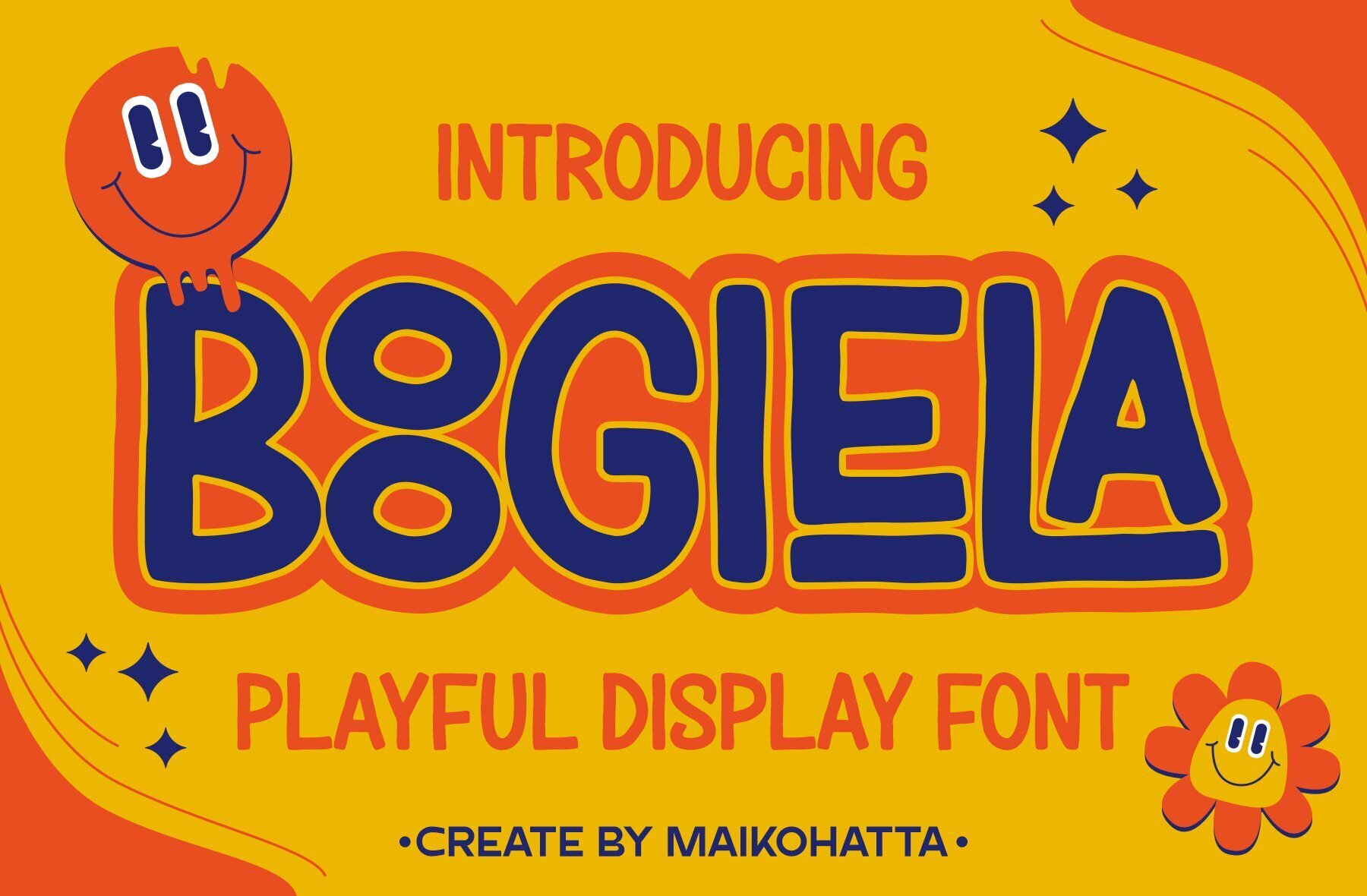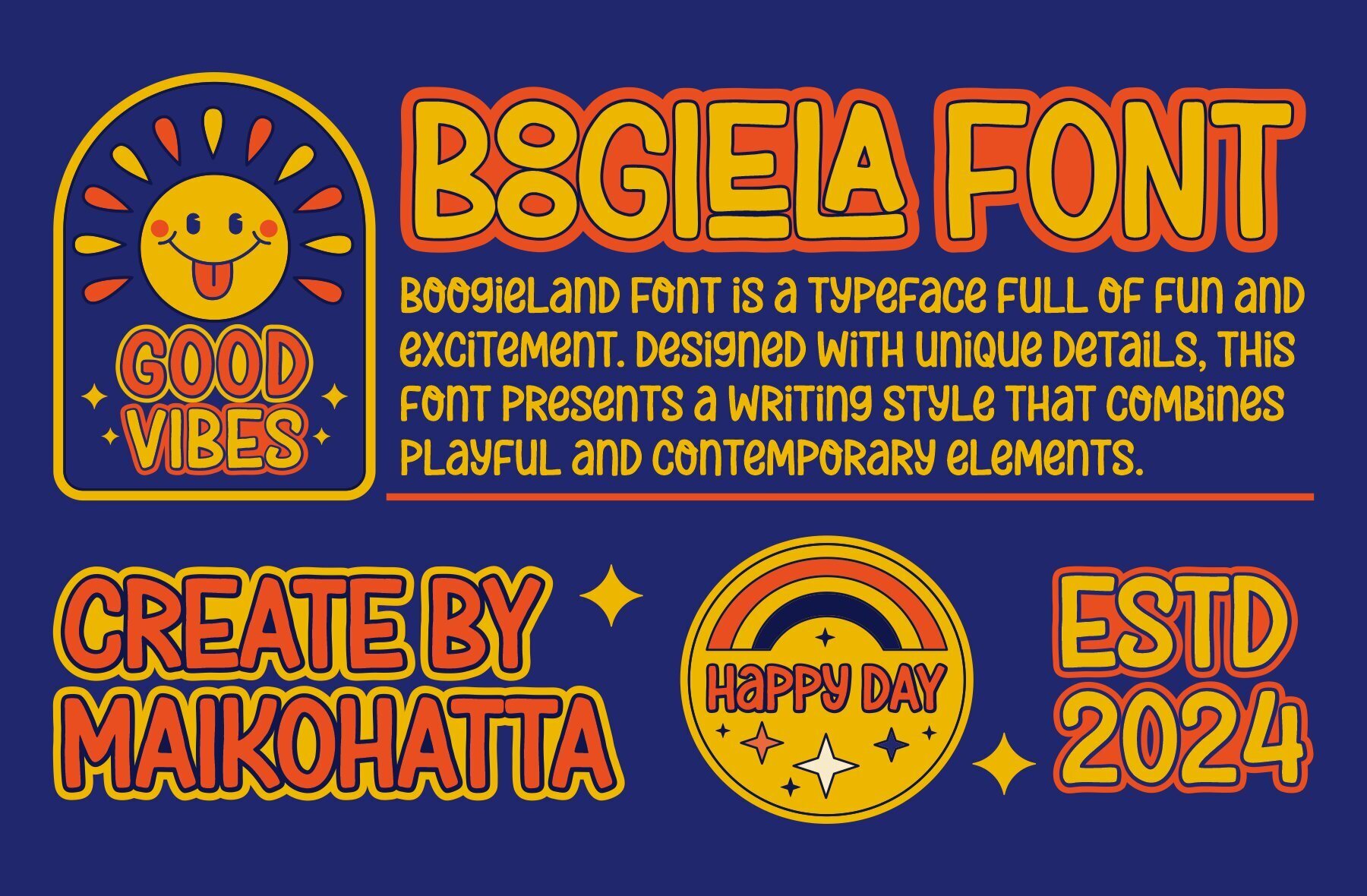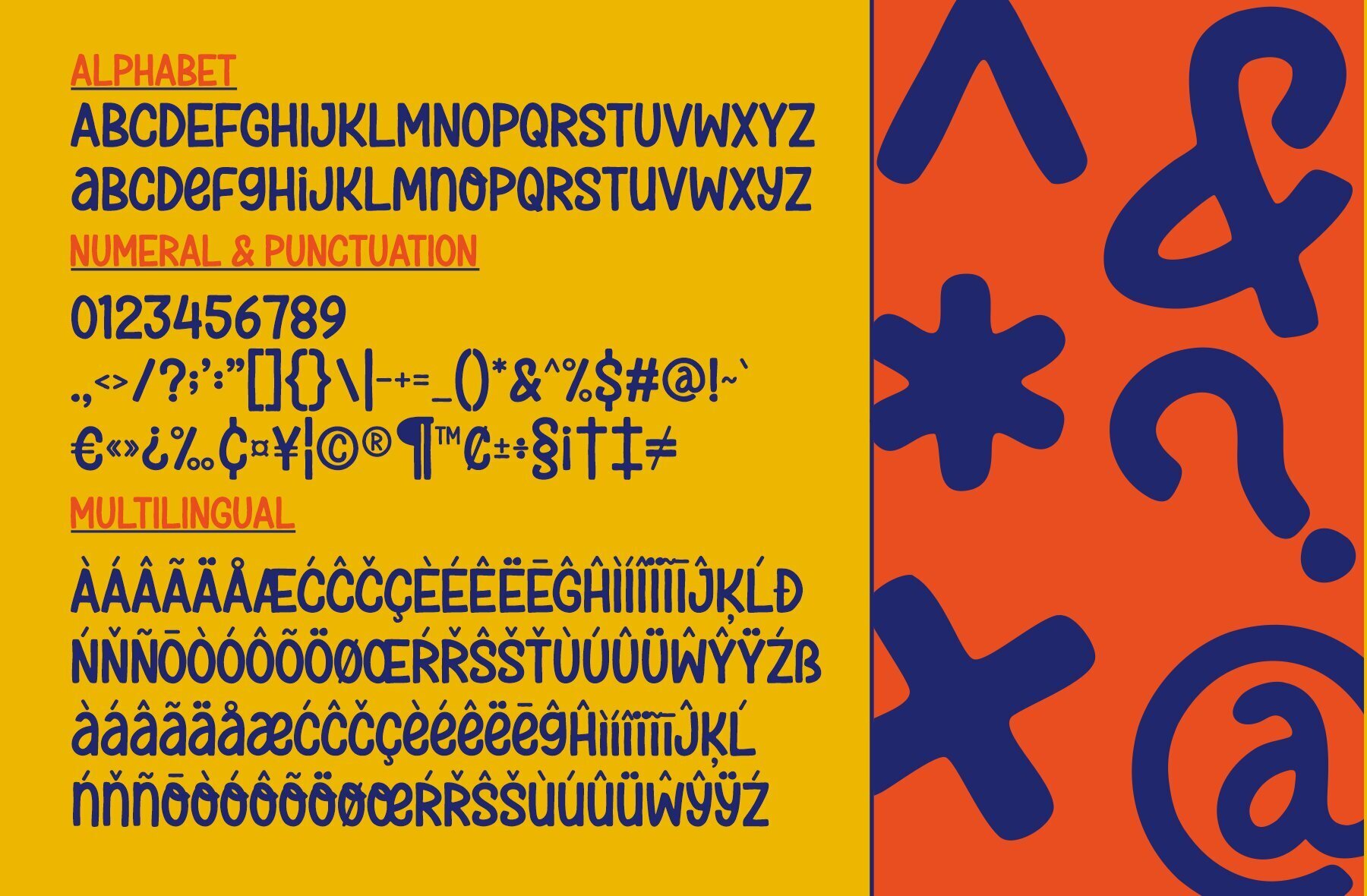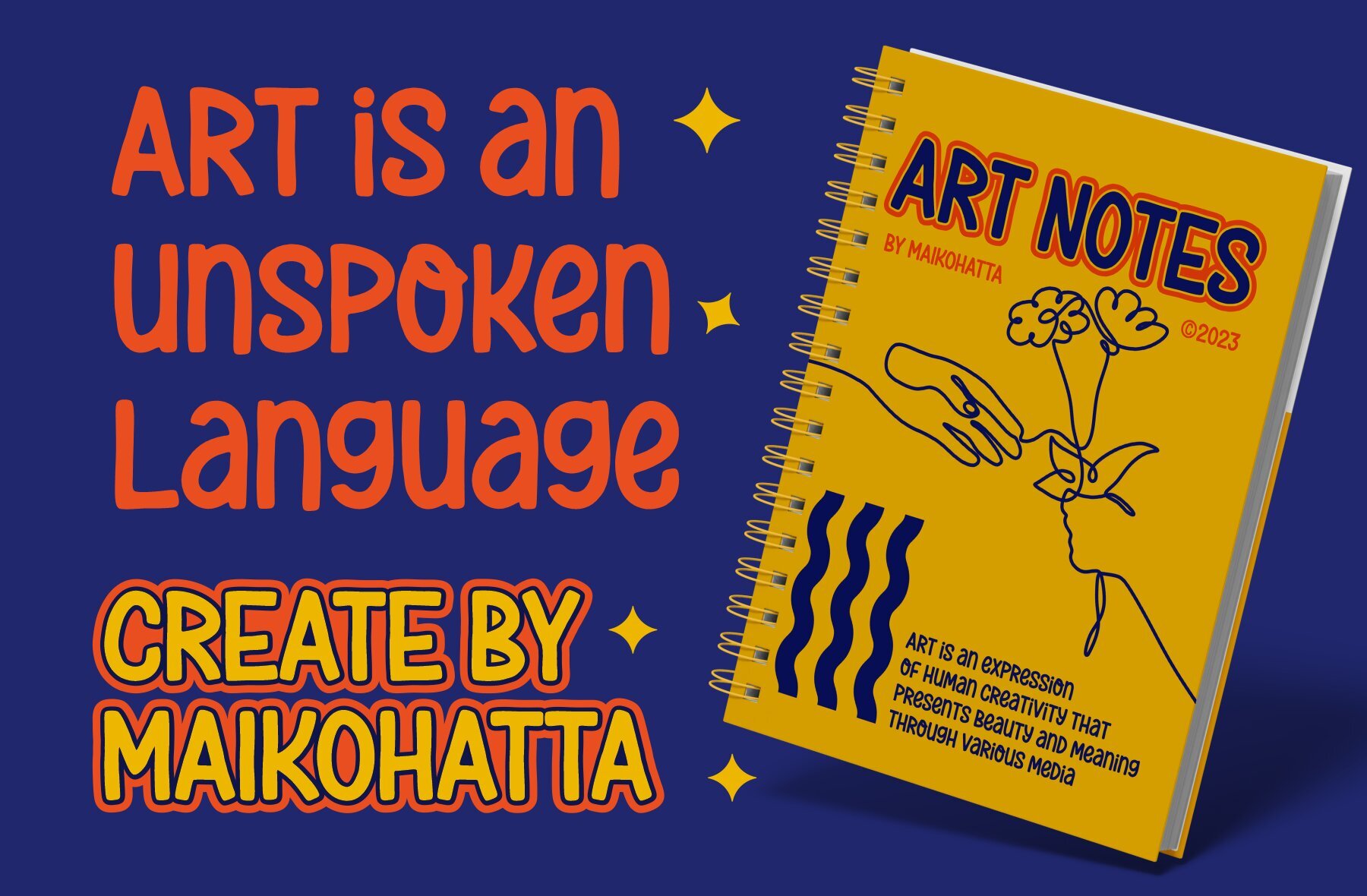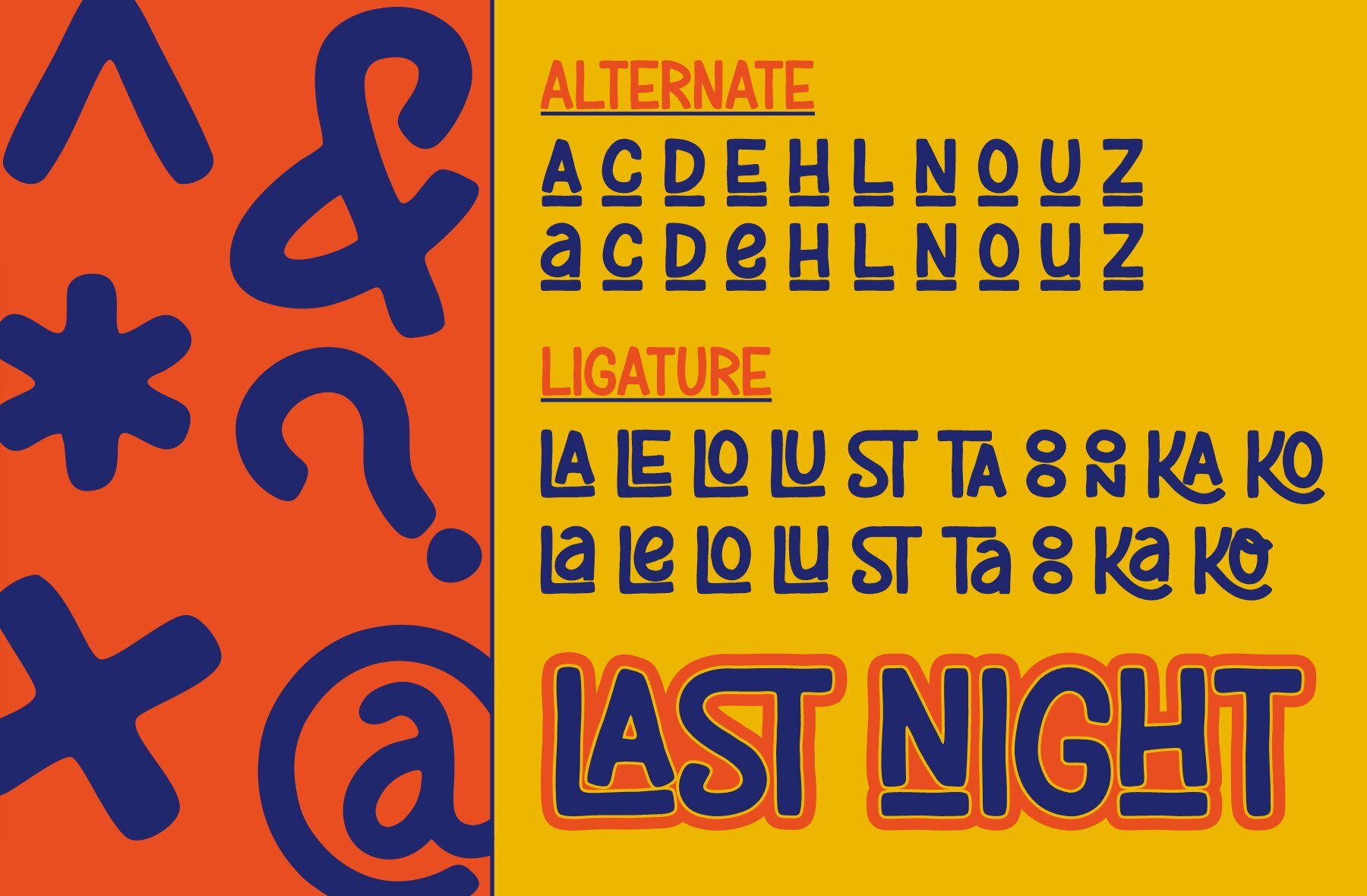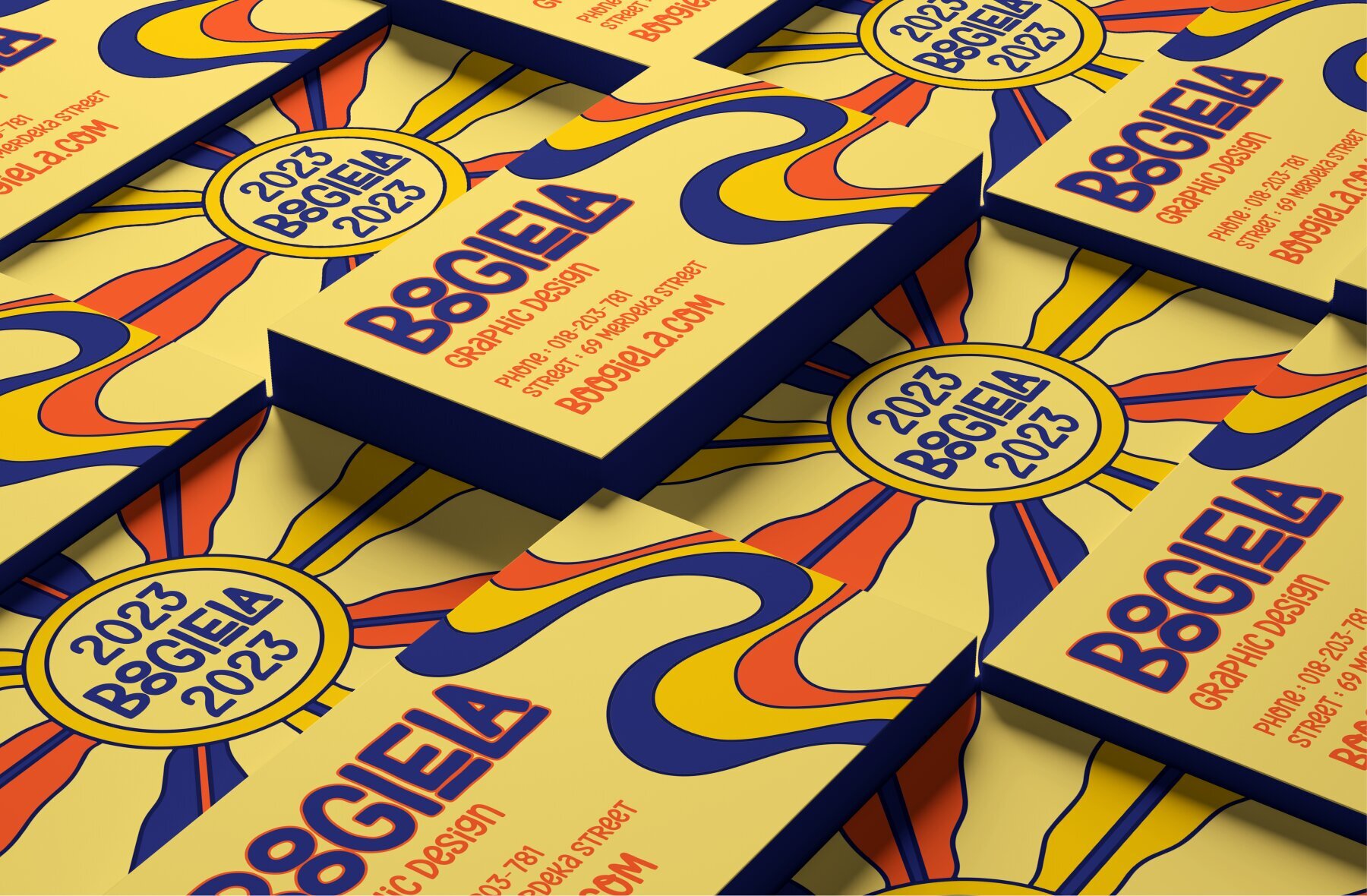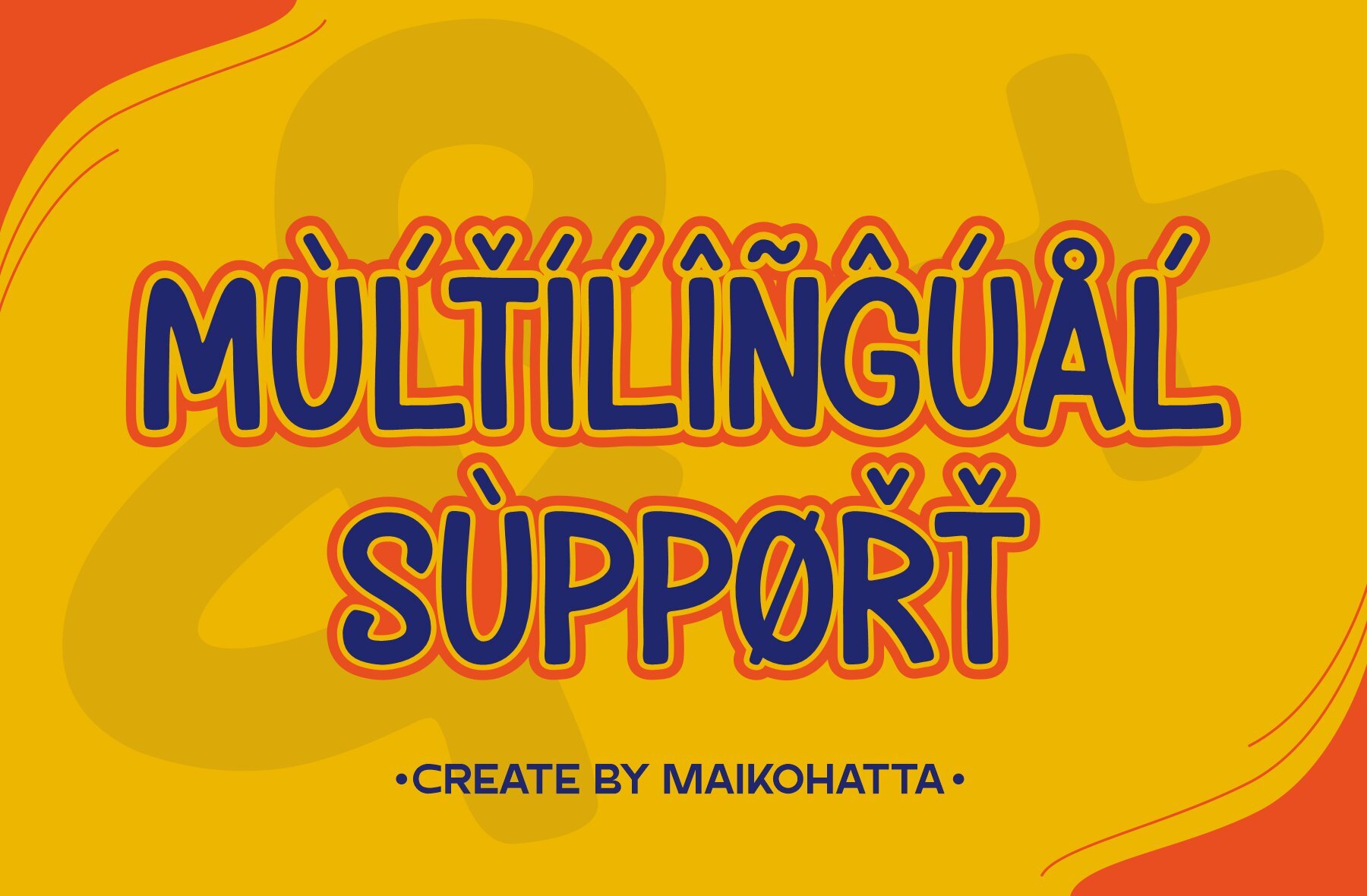
Boogiela Font
Boogiela Regular
Boogiela is a lively display font that exudes joy and cheerfulness. Its handwritten style is reminiscent of the expressive texts often found in comics or cartoons, making it the perfect choice for those looking to convey a sense of lightness and fun. This font is perfect for projects aiming to bring out elements of playfulness and fun. It's especially suited for:Boogiela: A Playful Display Font
Ideal Usage